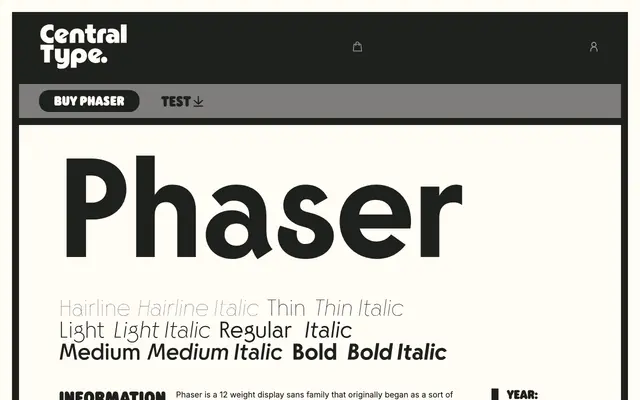
A display sans from Central Type built for headline and graphic use.
Phaser is a display sans-serif from Central Type, designed for headline and graphic applications. Little detailed information was available from the page content, but the typeface appears to occupy a singular, purpose-driven role within the Central Type catalogue.
Phaser appears to be a display-oriented sans-serif with a distinctive, purpose-built character suited to headlines and graphic applications rather than extended text setting.